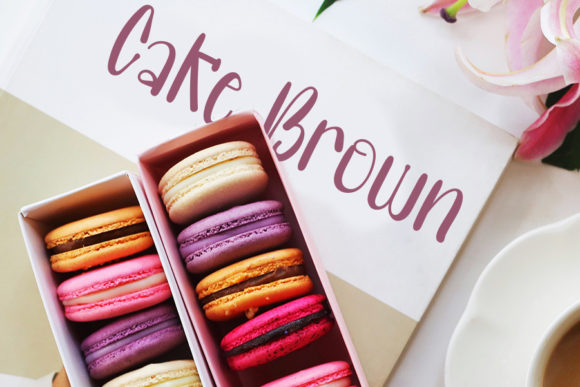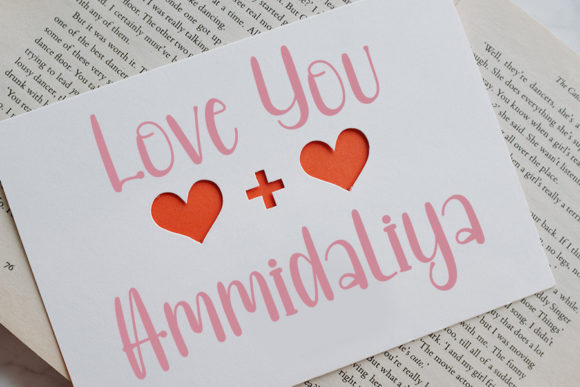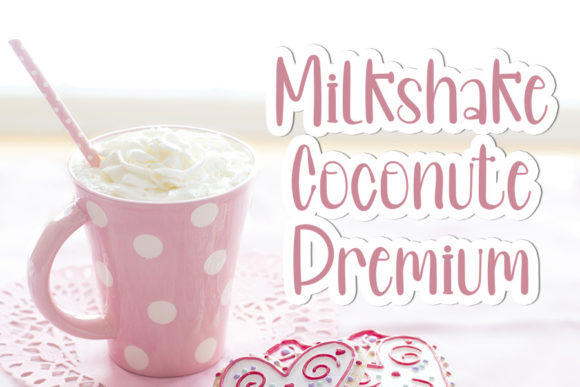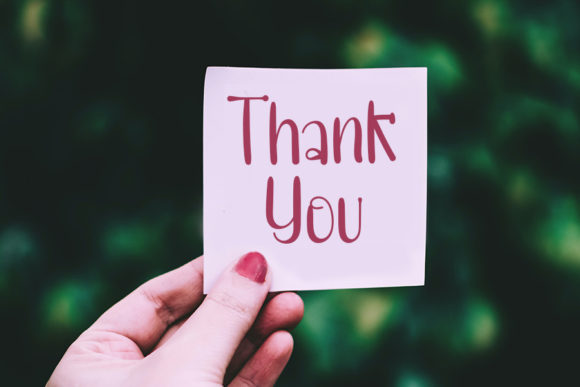
Milkshake Font
About Milkshake Font
Milkshake is a cool, relaxed, and casual handwritten font that exudes a laid-back and effortless vibe. With its smooth and flowing characters, this font adds a touch of casual elegance to your designs. It is a versatile typeface that can confidently be added to your favorite creations, bringing a sense of creativity and uniqueness to your projects.
The cool and relaxed nature of Milkshake sets it apart and adds a sense of ease and informality to your designs. The font’s handwritten style creates a visually appealing composition that exudes a casual and carefree atmosphere. It adds a touch of personality and charm, making your designs stand out.
Milkshake’s versatility allows it to be applied to various projects, ensuring that it complements the desired style and theme. Whether you’re designing social media graphics, branding materials, invitations, or any other design that calls for a cool and casual touch, this font adapts seamlessly and adds a sense of creativity.
By incorporating Milkshake into your designs, you infuse them with a sense of coolness and uniqueness. The font’s relaxed and casual style creates a visually captivating look that captures attention and leaves a lasting impression. Embrace the cool and relaxed vibe of Milkshake and let it amaze you with the outcome it generates, adding a touch of creativity and personality to your favorite creations.
In summary, Milkshake is a cool, relaxed, and casual handwritten font that adds a touch of effortless style to your designs. Its smooth and flowing characters create a visually appealing composition that exudes a sense of informality and charm. Embrace the creativity of Milkshake and be amazed by the outcome it generates, adding a cool and unique touch to your favorite creations.